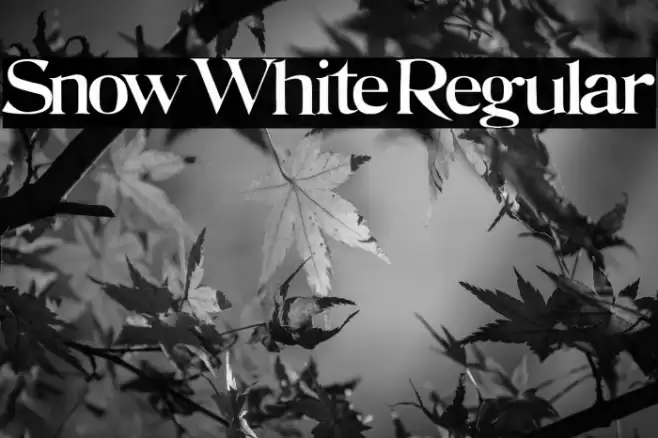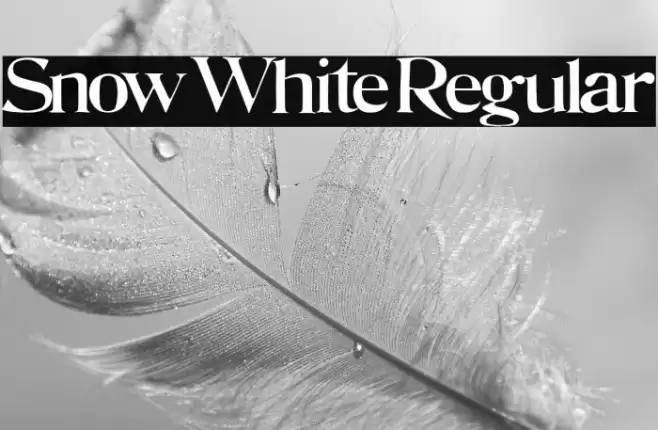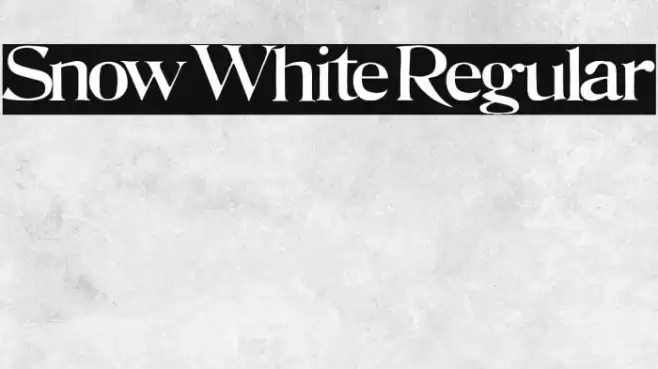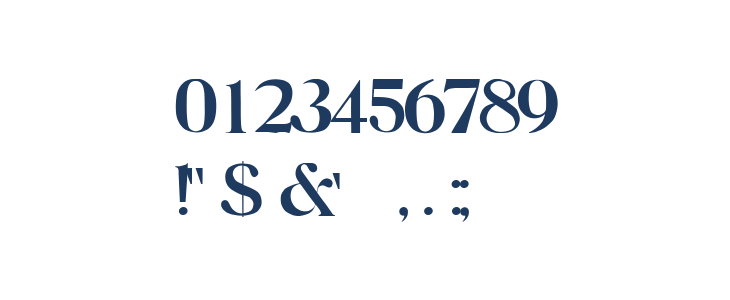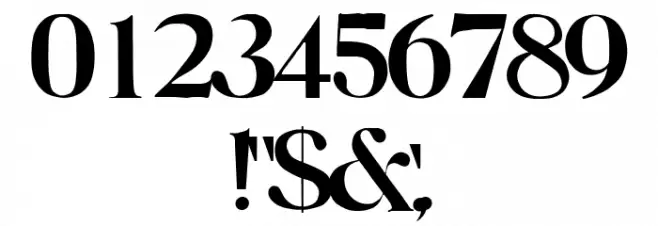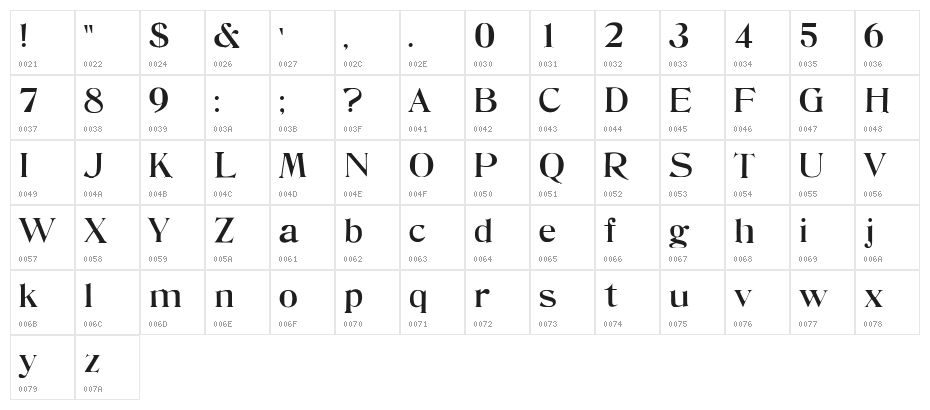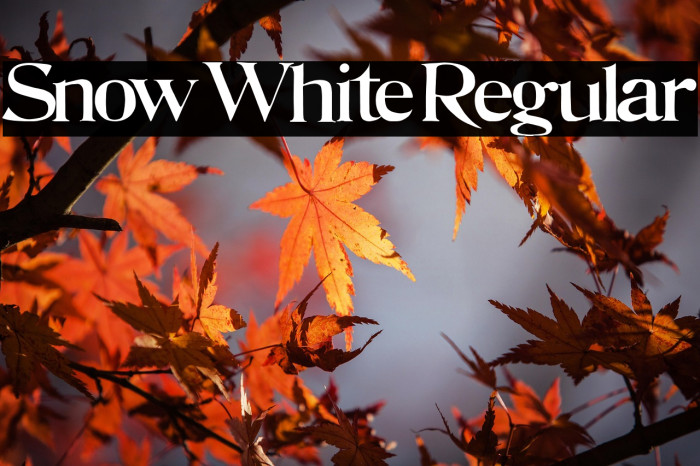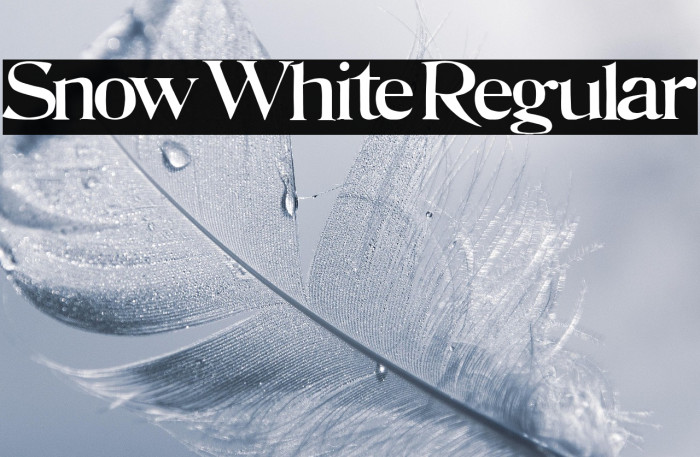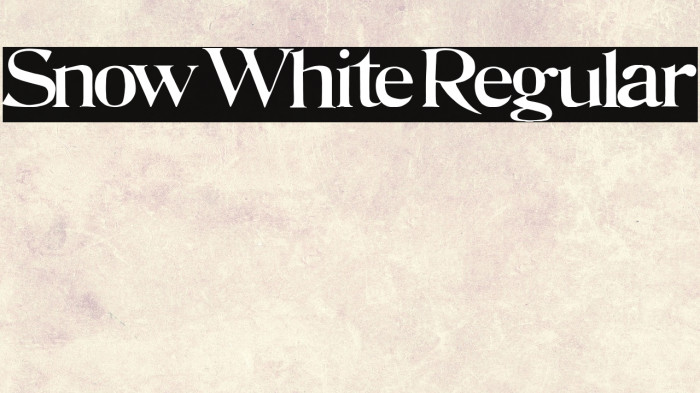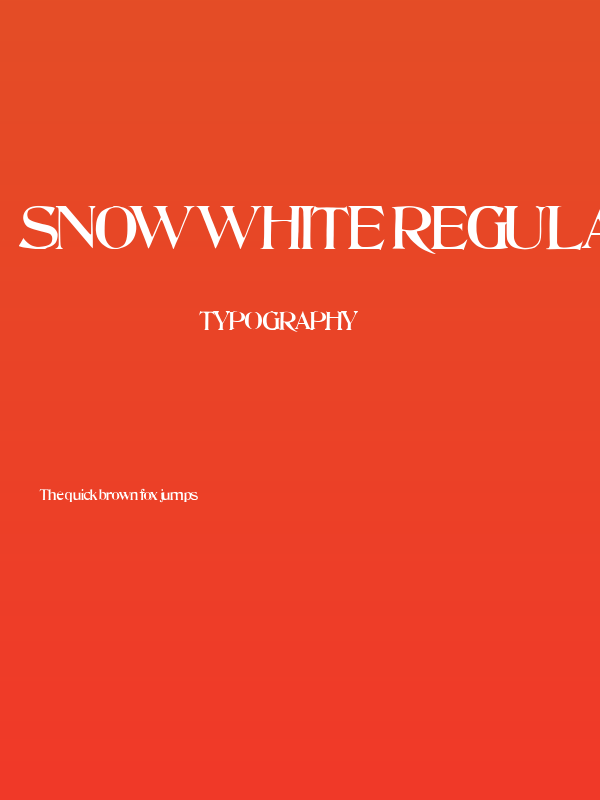
Snow White Regular Font
Snow White Regular Description
This font features a distinctive and elegant design with a classic touch. The uppercase letters are bold and slightly condensed, with sharp serifs that add a sense of sophistication. The lowercase letters maintain a consistent style, offering a smooth and flowing appearance. Numbers are well-proportioned, matching the overall aesthetic of the alphabet. Special characters are uniquely styled, complementing the font's decorative nature. The overall design is reminiscent of traditional serif fonts but with a modern twist, making it suitable for various creative applications.
A classic serif font with a modern twist, featuring sharp serifs and elegant styling from Regular fonts.
- Proposed Projects: Ideal for book covers, invitations, branding, and editorial design where a touch of elegance is desired.
- Overall Style: Classic
- Use Case: Headlines, Logos, Editorial design